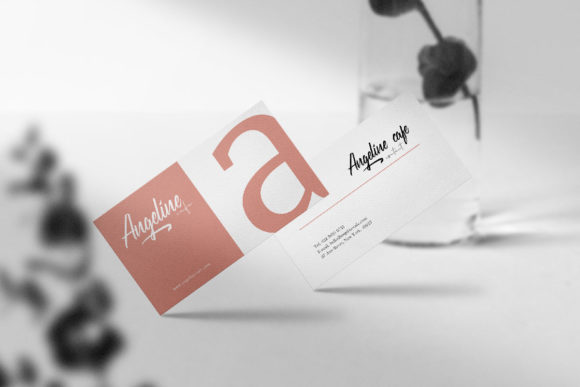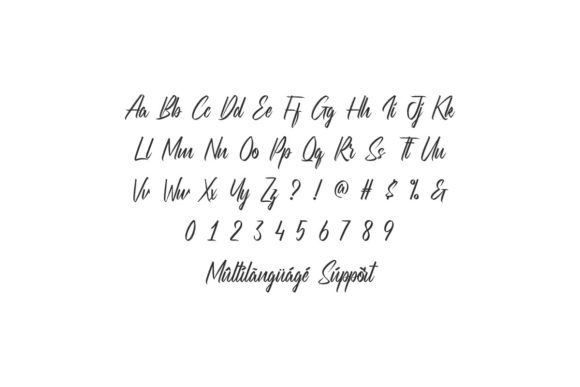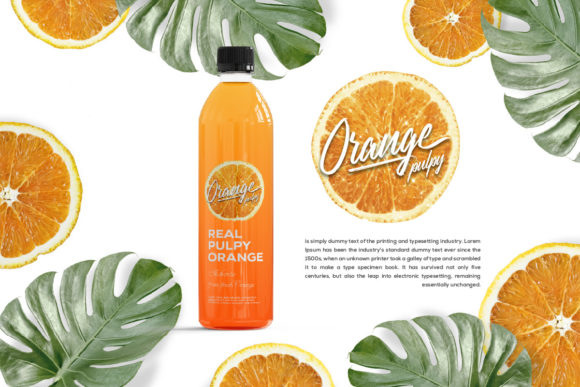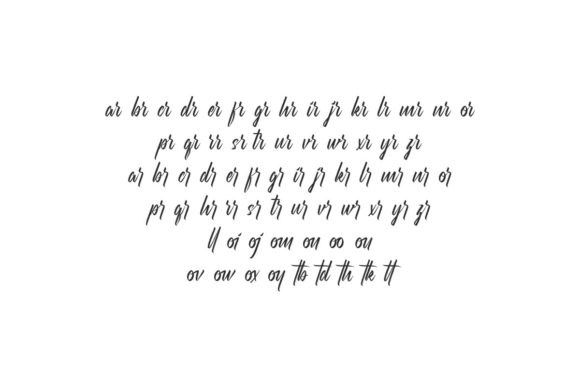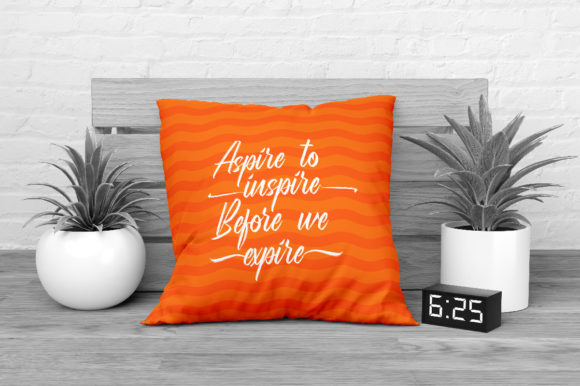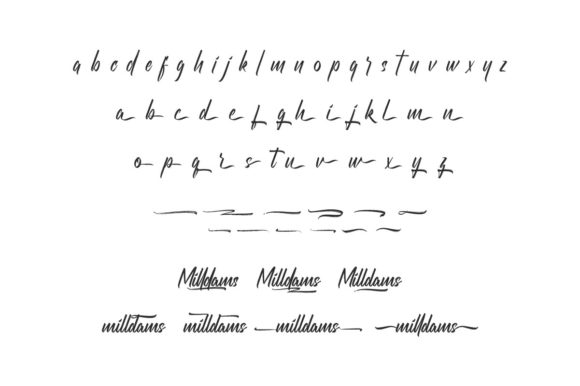
Introduction to Milldams Font
Do you ever find yourself in the midst of a creative project, scrolling through font libraries in search of the perfect match? The words flow effortlessly, but something’s missing – that special touch that elevates your design from ordinary to extraordinary. For designers, this is a familiar feeling, and it’s exactly what inspired us to explore the charming world of Milldams Font.
| 👤 Author | NihStudio |
Milldams Font is more than just a pretty face; it’s a design resource that brings a touch of whimsy and personality to any project. With its lovely, brushed script characters, this font is sure to add a playful twist to your next creative endeavor. Whether you’re working on a free download project or a high-quality design for a client, Milldams Font is the perfect choice.
Key Features of Milldams Font
- High-quality design resource suitable for creative projects, available for free download.
- Features a unique, elegant style with a transparent background, ideal for use in various design applications.
- Designed to be versatile and easy to use, making it a valuable addition to any design resource collection.
- Perfect for use in graphic design, digital art, and other creative projects where a high-quality font is required.
- Can be easily customized and edited using font editing software, allowing for a high degree of flexibility and control.
Honest Review: Milldams Font
I recently had the chance to work with the Milldams Font and I must say it’s been a game-changer for my design projects. This high-quality font is a great addition to any designer’s arsenal, offering a unique and stylish look that’s perfect for creative projects.
- ✨ High-quality design: The Milldams Font is beautifully crafted with a transparent background that allows for seamless integration into any design.
- ✨ Versatility: This font is perfect for a wide range of creative projects, from logos and branding to typography and editorial design.
- ⚠️ Limited font styles: While the Milldams Font is a great addition to any design library, it would be even more useful if it came with a wider range of font styles and weights.
Overall, I’m thoroughly impressed with the Milldams Font. Its high-quality design, versatility, and ease of use make it a valuable resource for any designer. Just be aware of the limitations and plan accordingly.
Using Milldams Font in Creative Projects
Milldams Font features a transparent background, making it ideal for use in a variety of design applications. You can use it in Canva, Adobe Photoshop/Illustrator, or PowerPoint/Word.
Tips for Getting the Most Out of Milldams Font
To get the most out of Milldams Font, experiment with different font sizes, colors, and combinations. This will help you achieve a unique look for your project.
Common Use Cases for Milldams Font
Milldams Font is commonly used in logos, business cards, and other branding materials. Its high-quality design makes it a popular choice for creative professionals and hobbyists alike.